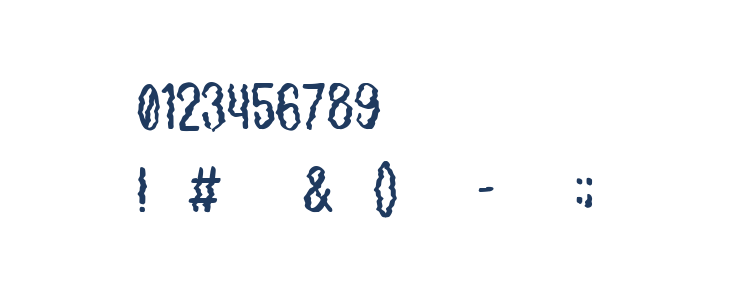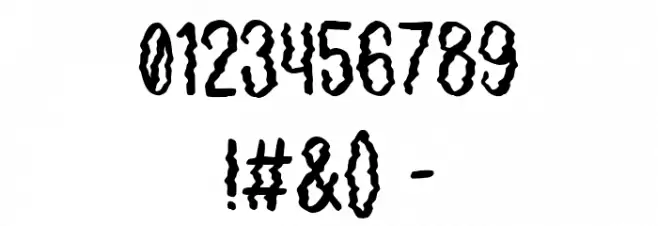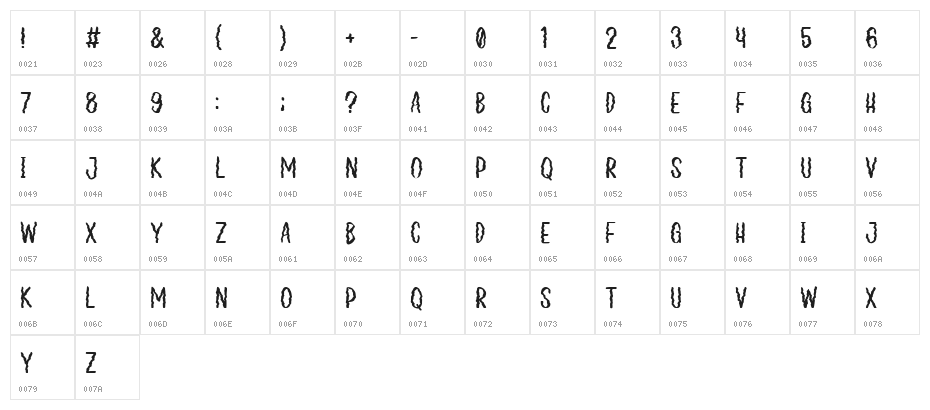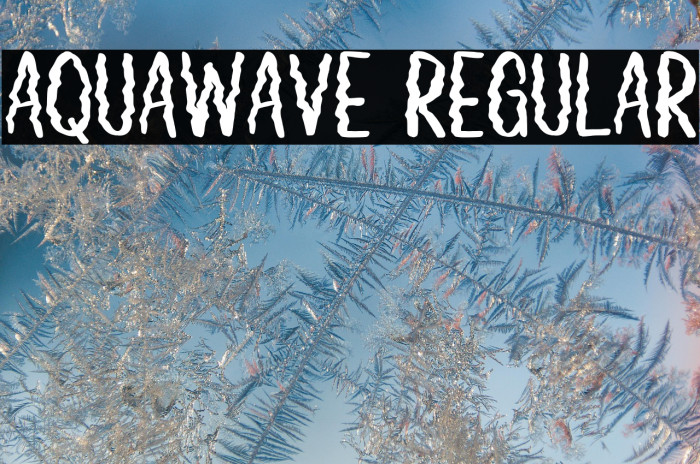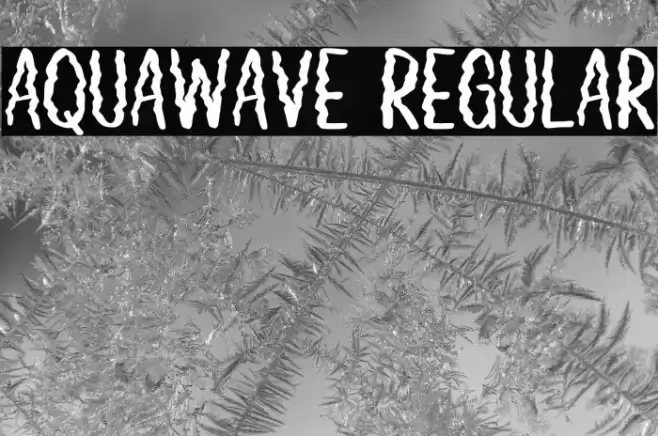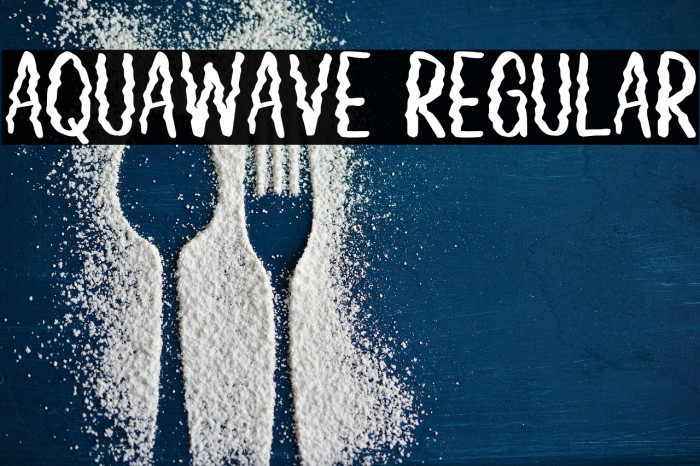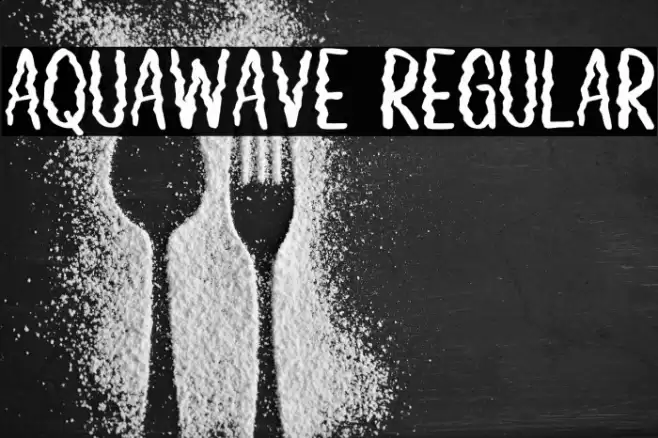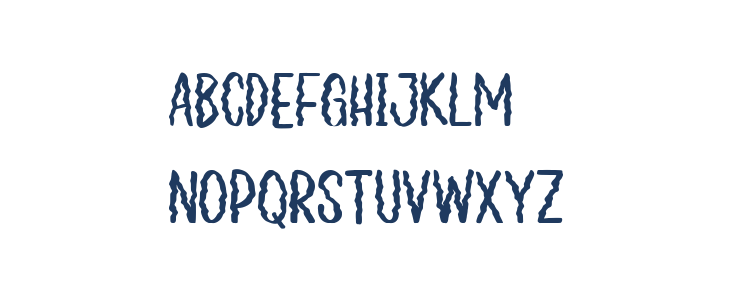
Aquawave Regular Font
Aquawave Regular Description
This font features a unique, wavy design that mimics the fluidity and movement of water. Each character is crafted with irregular, flowing lines that give it a dynamic and energetic appearance. The uppercase and lowercase letters maintain a consistent style, with the uppercase being slightly more pronounced. The numerals and special characters follow the same aesthetic, ensuring a cohesive look across all text. This font stands out with its decorative and playful nature, making it ideal for creative projects that require a touch of whimsy.
| Proposed Projects | Ideal for creative projects such as posters, invitations, and branding materials that require a playful and dynamic touch. |